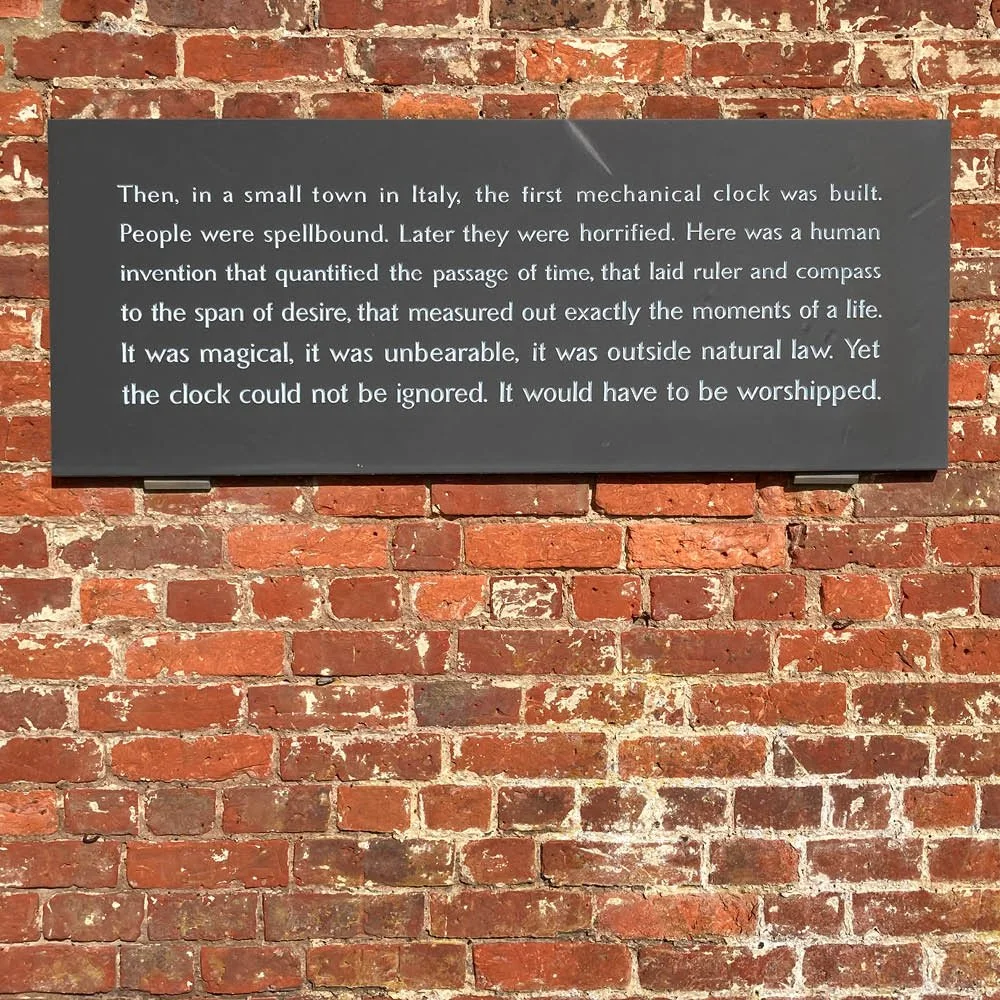
Clock by Kate Owen (designer) with Hugh Grace (letter-carver)
Welsh slate
For this piece Kate chose a favourite passage from Alan Lightman’s book, Einstein’s Dreams. In her design the words become subtly larger, “as if to mock our obsession with the measurement of time.”
“In the act of remembering, we look backwards in time. We are set adrift to move about freely within our own particular experience of it. This offers a release from the here and now – which, because of the invention of the clock, ticks away more accurately than our own internal heartbeats.”
As Kate no longer carves, her collaborative partner Hugh did the precise, proportionate carving required. “Helping Kate has brought me into contact with new ideas and paths to explore.”